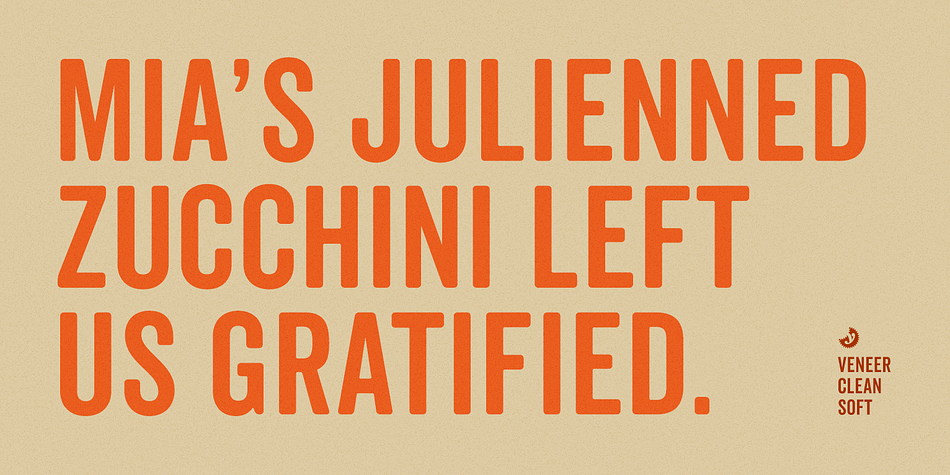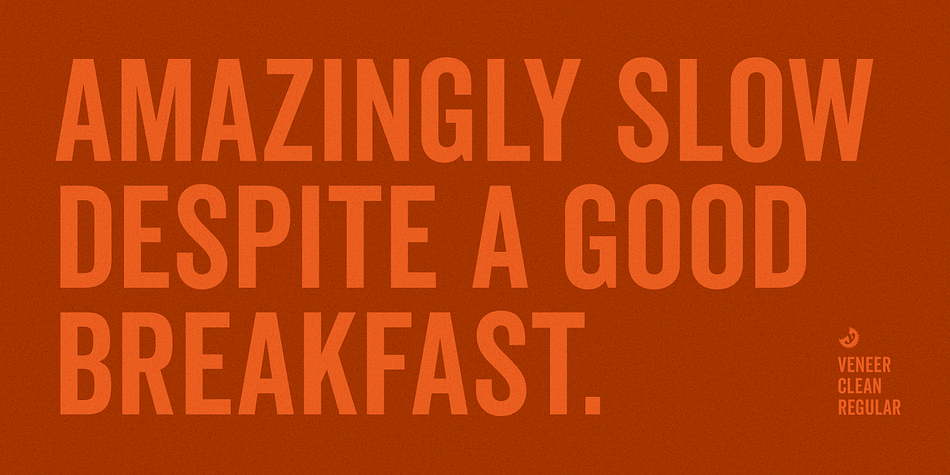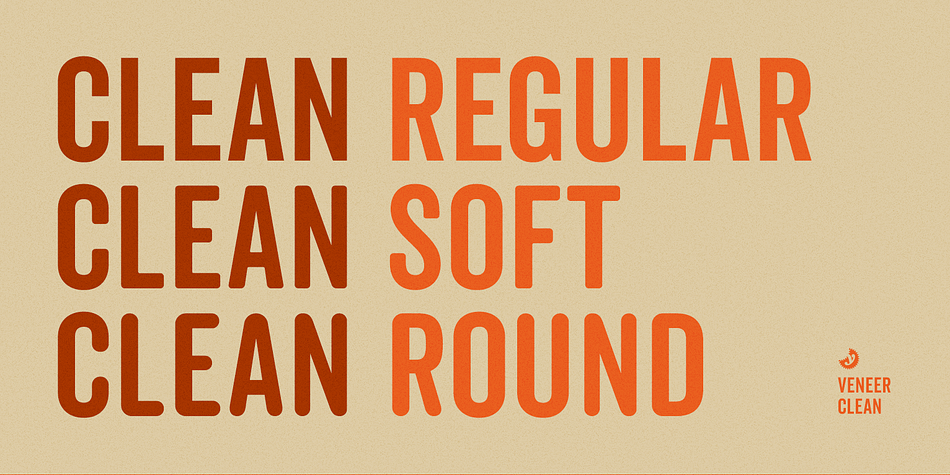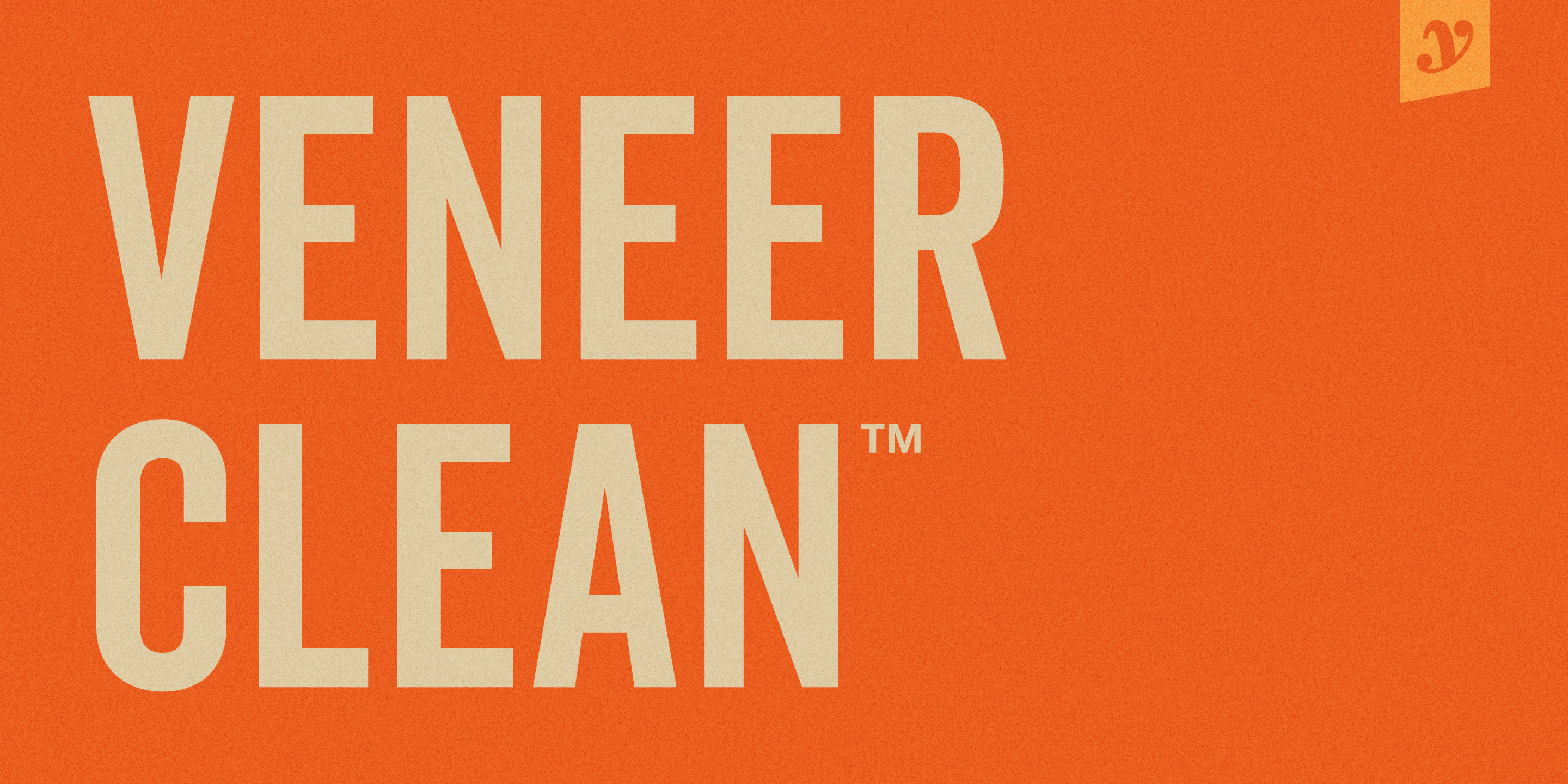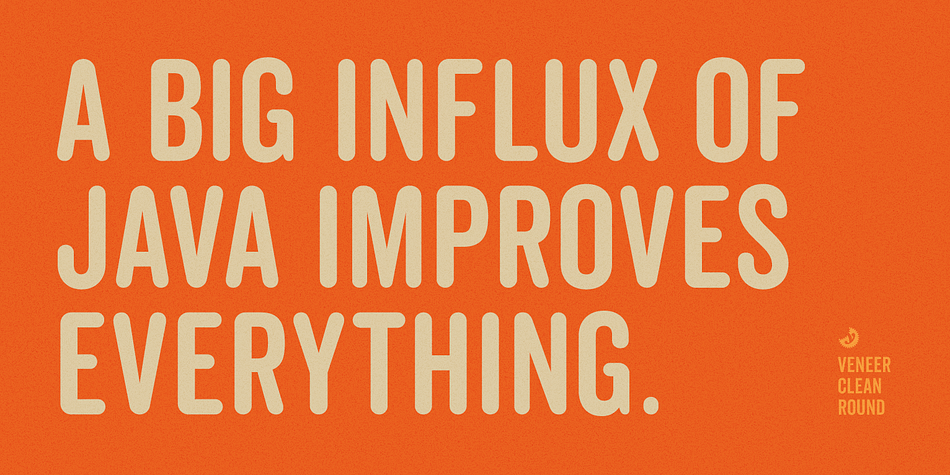
Veneer Clean is a dingbat and display sans font family. This typeface has eight styles and was published by Yellow Design Studio.
Veneer Clean from Yellow Design Studio is the non-distressed version of the Veneer letterpress type family.
The 8-font family includes Regular, Soft and Round versions with italics plus a free set of funky icons!